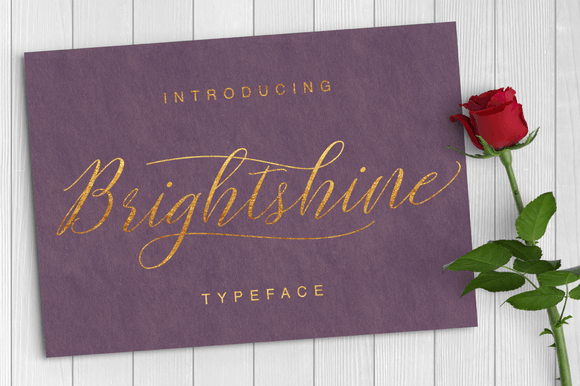
The Elusive Perfect Font: My Encounter with Brightshine
Have you ever been in the middle of a design project, and suddenly, it hits you – the font you’re using just isn’t cutting it? You’re striving for that perfect blend of elegance and sophistication, but your current font just doesn’t make the cut. I recall a particularly challenging project where I was working on a wedding invitation design. The client wanted something that exuded romance and luxury, but the fonts I had at my disposal just didn’t feel right. That’s when I stumbled upon Brightshine, a modern and beautiful script font that instantly caught my eye.
First Impressions: A Love Letter to Brightshine
Brightshine is described as a modern and beautiful script font, thin and sleek for a mature and elegant vibe. This font is ideal for special events, romantic projects, or whenever you want to add a polished feel to your designs. My first impression was overwhelmingly positive – the font’s sleek lines and elegant curves immediately drew me in.
What I Love About Brightshine ✨
• ✅ Its thin and sleek design makes it perfect for adding a touch of elegance to any project.
• ✅ The font is incredibly versatile, making it suitable for a wide range of applications, from wedding invitations to branding and packaging.
• ✅ The OpenType features, including glyphs and stylistic alternates, offer a high degree of customization and flexibility.
• ⚠️ Some users may find that the font’s sleek lines can be a bit too thin for certain design applications, such as body text.
• ⚠️ As with any script font, some letters may not connect as seamlessly as others, which can affect the overall flow of the text.
The Story Behind Brightshine
Brightshine was designed by a team of typographers who wanted to create a font that would evoke the feeling of luxury and sophistication. Inspired by classic script fonts, they aimed to create a modern, elegant design that would be perfect for special occasions and high-end branding. The result is a beautiful, versatile font that is sure to impress.
Q: What is Brightshine font best used for?
A: Brightshine is ideal for special events, romantic projects, or whenever you want to add a polished feel to your designs.
Q: Does Brightshine support OpenType features?
A: Yes, Brightshine supports OpenType features, including glyphs and stylistic alternates, which can be accessed in compatible design applications.
Q: Is Brightshine easy to read?
A: Brightshine is a script font that is designed to be elegant and sophisticated, but it may not be suitable for body text or long blocks of text. It’s best used for headlines, titles, and short paragraphs.